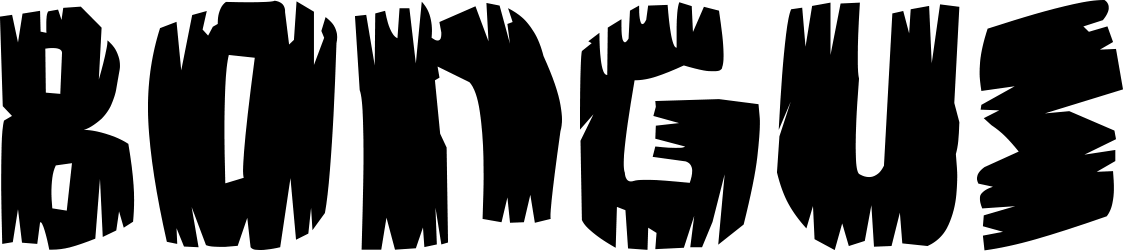
Bongus Font
Need a unique font to make your texts spicier? Bongus is an organic font with two different styles and its characters are designed like woodcuts. All of its alphabetical characters are in all caps. You can use this font…
Need a unique font to make your texts spicier? Bongus is an organic font with two different styles and its characters are designed like woodcuts. All of its alphabetical characters are in all caps. You can use this font for decorative design elements, illustrations, movie and book names, and product packaging. It doesn’t have a complete punctuation set.